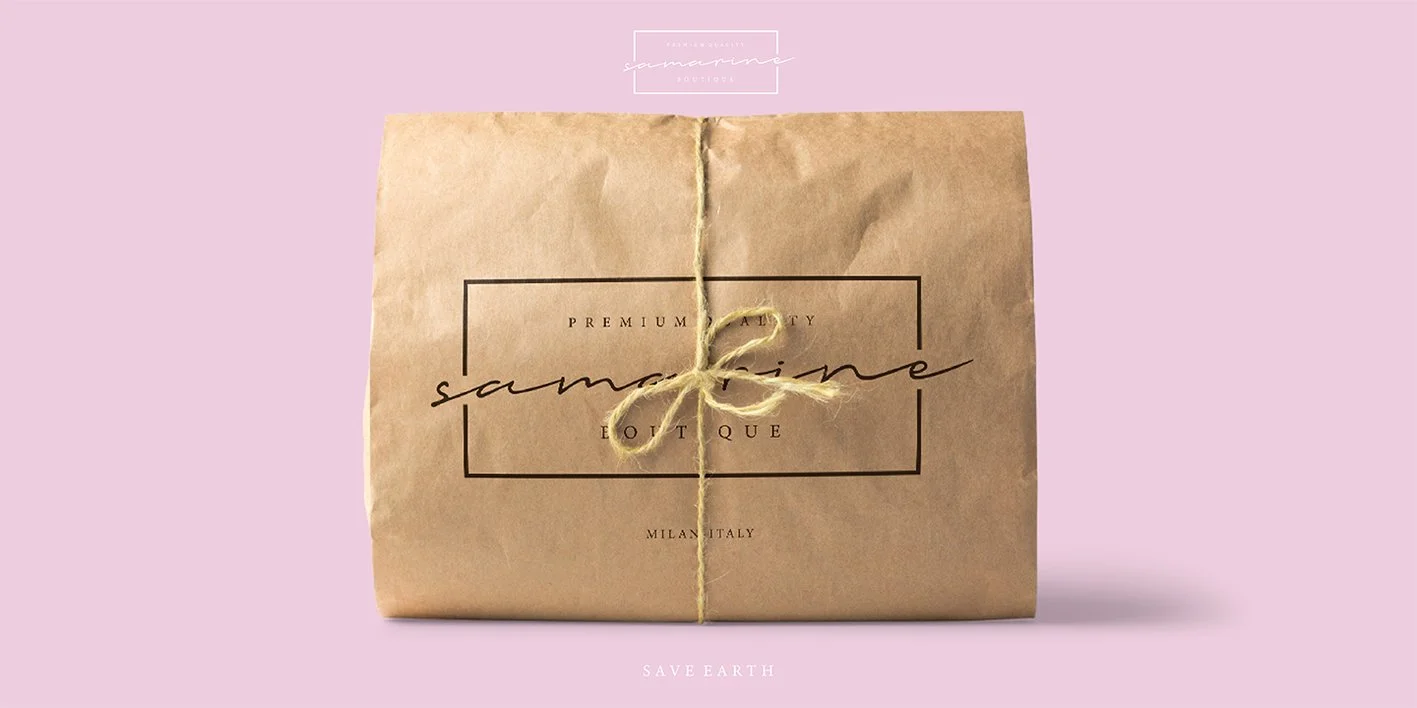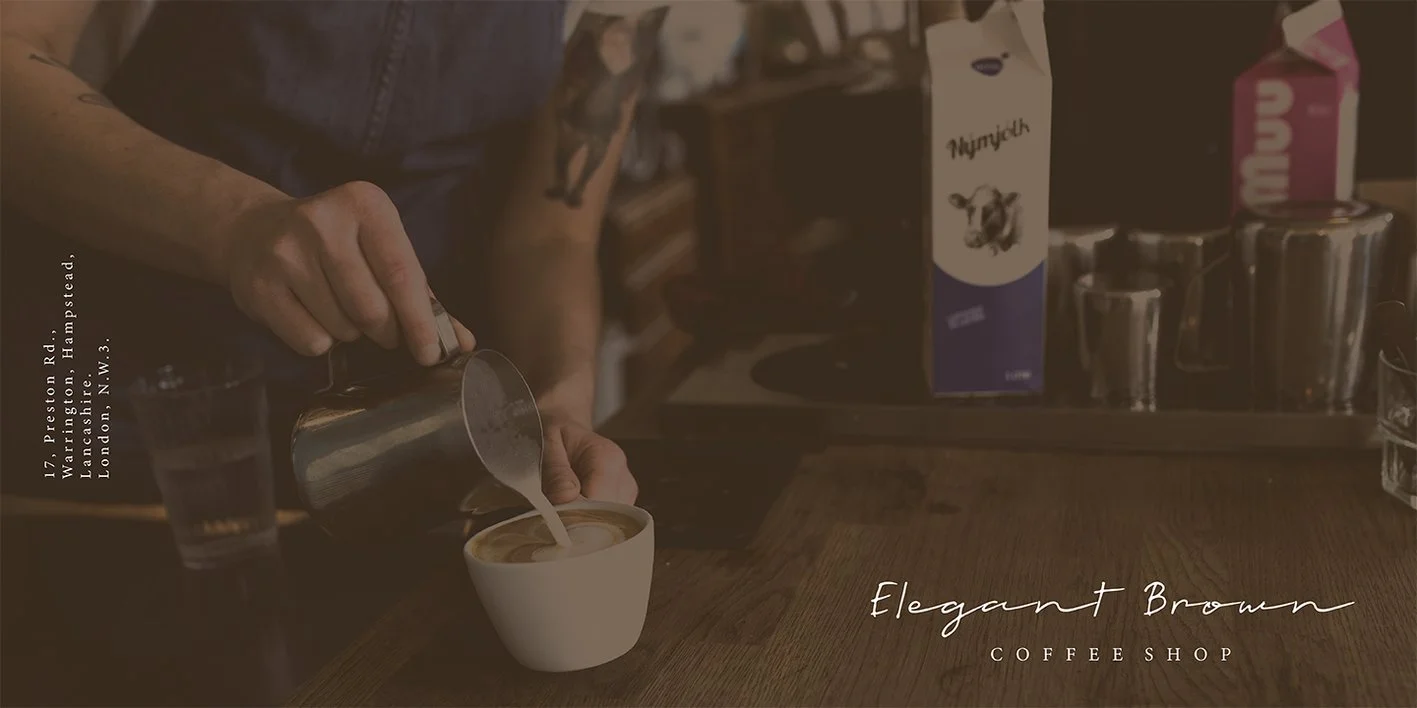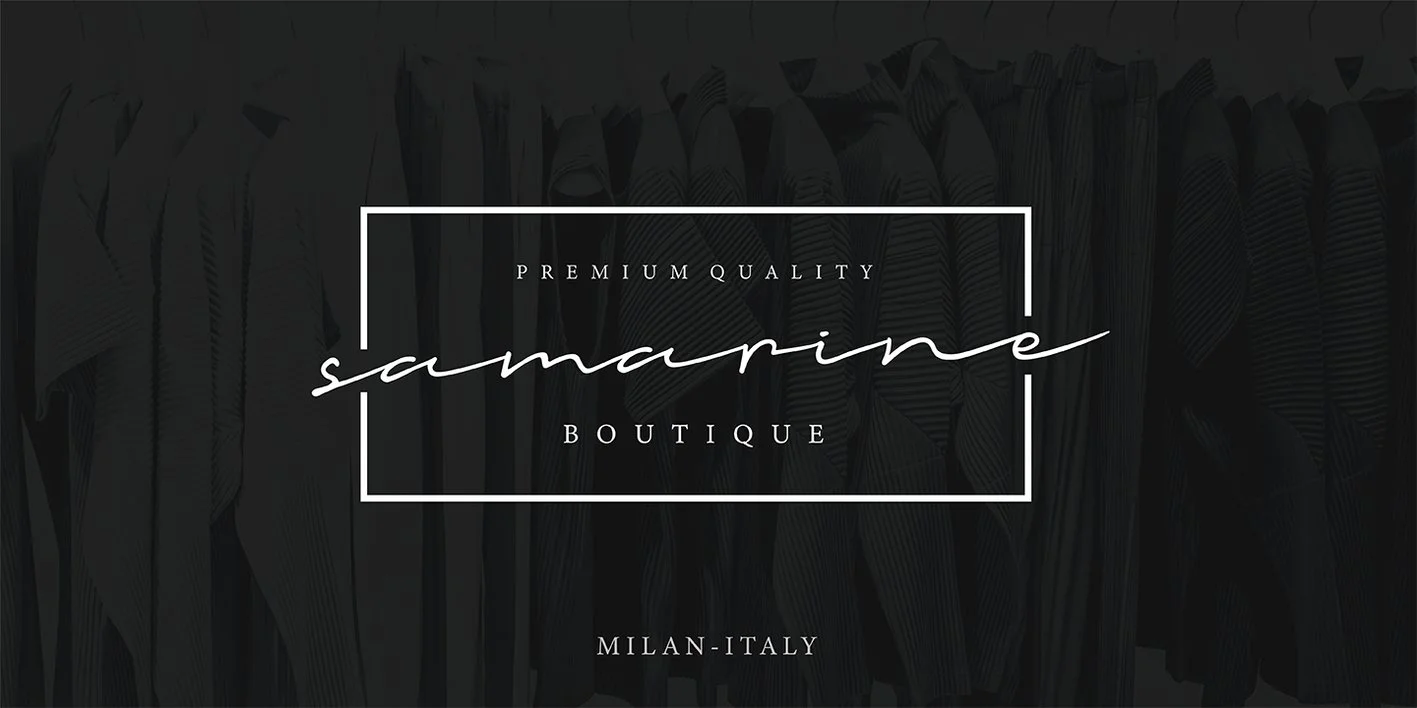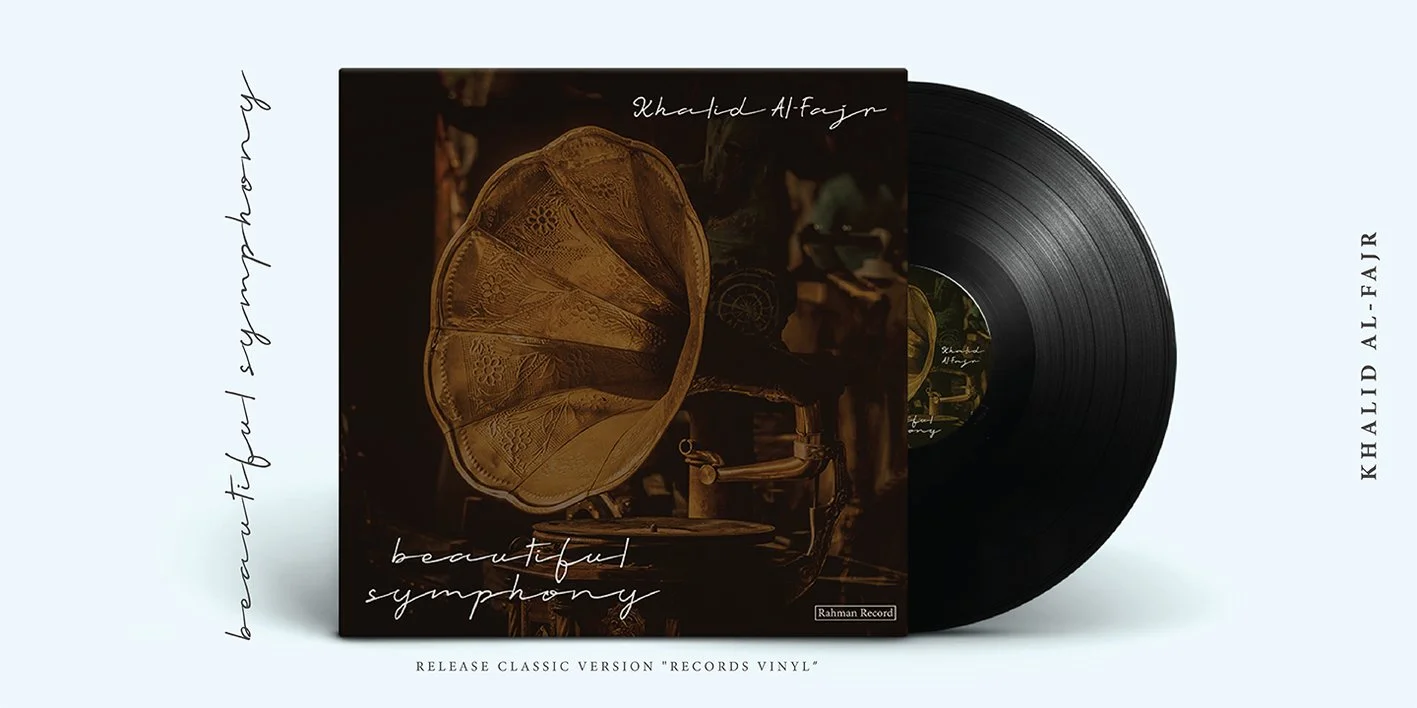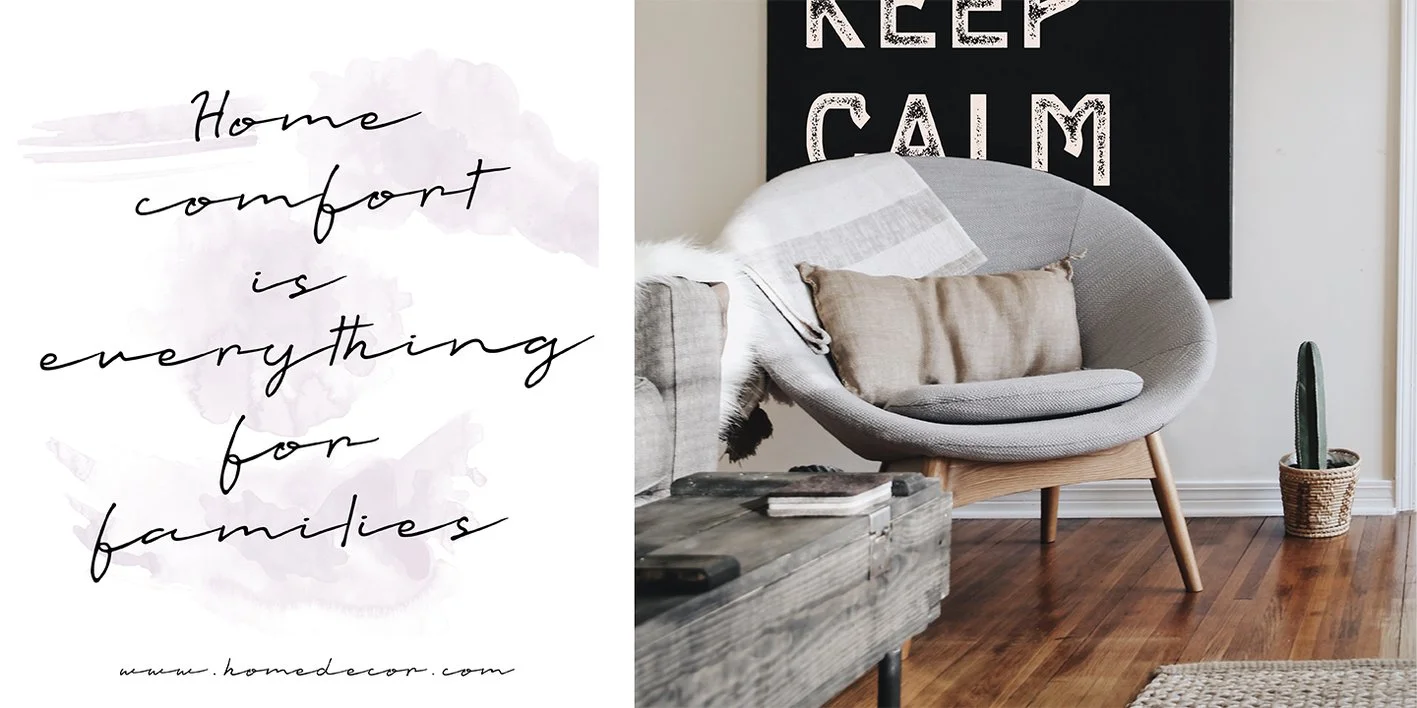
Talesian Font
Few typefaces manage to balance optical balance across all weights with genuine day-to-day practicality. Talesian is one of them. The typeface brings an elegant, calligraphic sensibility to a broad range of creative disciplines, with refined proportions and careful stroke modulation that holds up whether the work is print-first or screen-first.
In practice, Talesian proves particularly effective for fashion editorials, product labels, high-end cosmetic packaging, beauty packaging, annual reports. Designers reaching for it find that the type decisions feel resolved rather than laboured — a useful quality when client timelines are tight.
The range of applications extends to bridal materials, event signage, web design, logo design. That breadth is deliberate: the proportions and spacing were stress-tested across a wide range of mock briefs before the typeface was finalised.
Ascenders and descenders are drawn with generous extents that give the script its characteristic rhythm. Ligature pairs have been individually tested to prevent collisions, and the baseline is slightly bounced to suggest a natural, unhurried hand.
Talesian sits comfortably alongside both classic and contemporary typefaces in multi-font hierarchies. It takes direction rather than competing for attention — a quality that experienced designers know is harder to find than it appears.
In-house creative teams at consumer brands find Talesian a reliable choice for projects that demand both personality and restraint. The design avoids the self-conscious quirkiness that dates quickly, settling instead for considered distinctiveness that holds up over time.